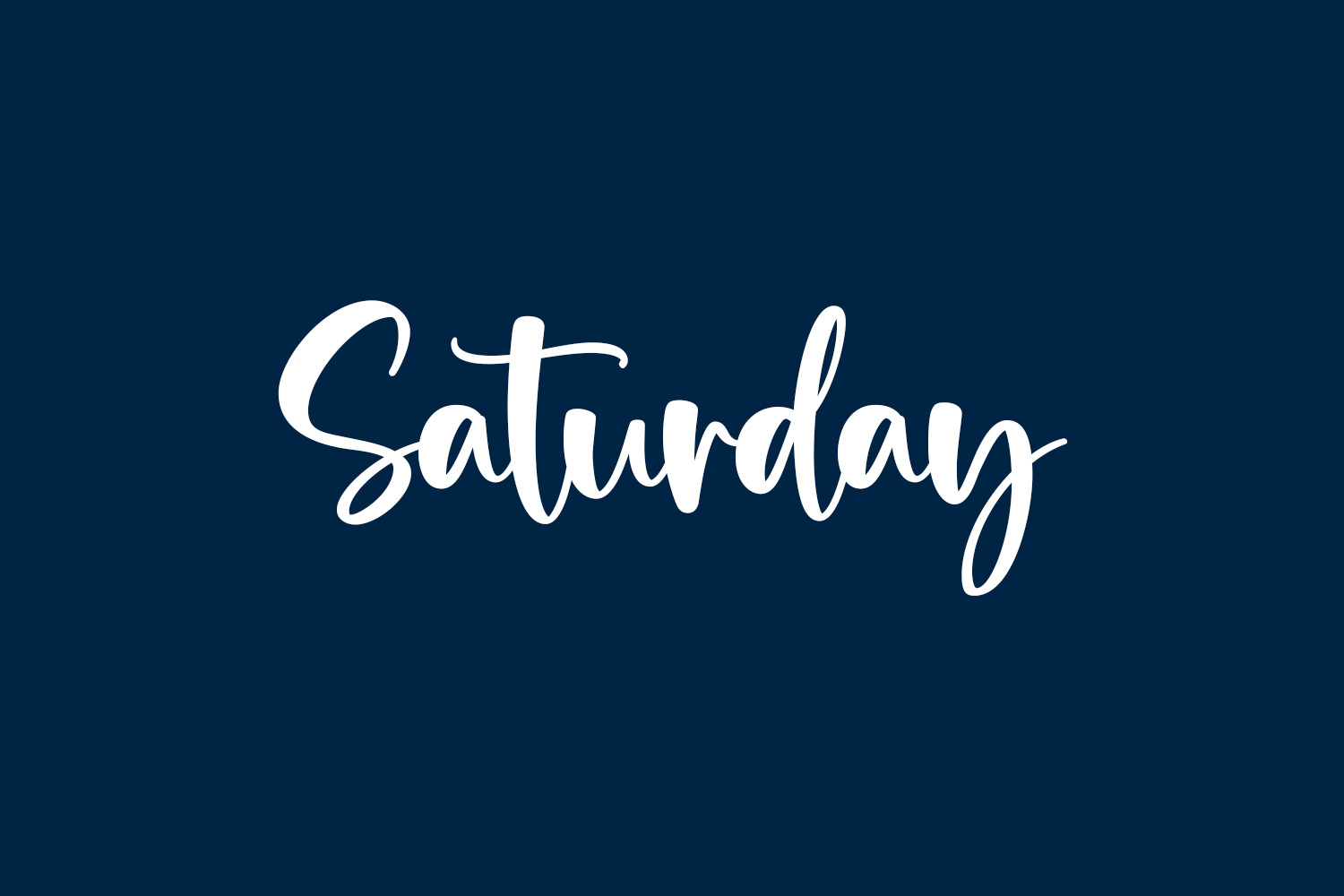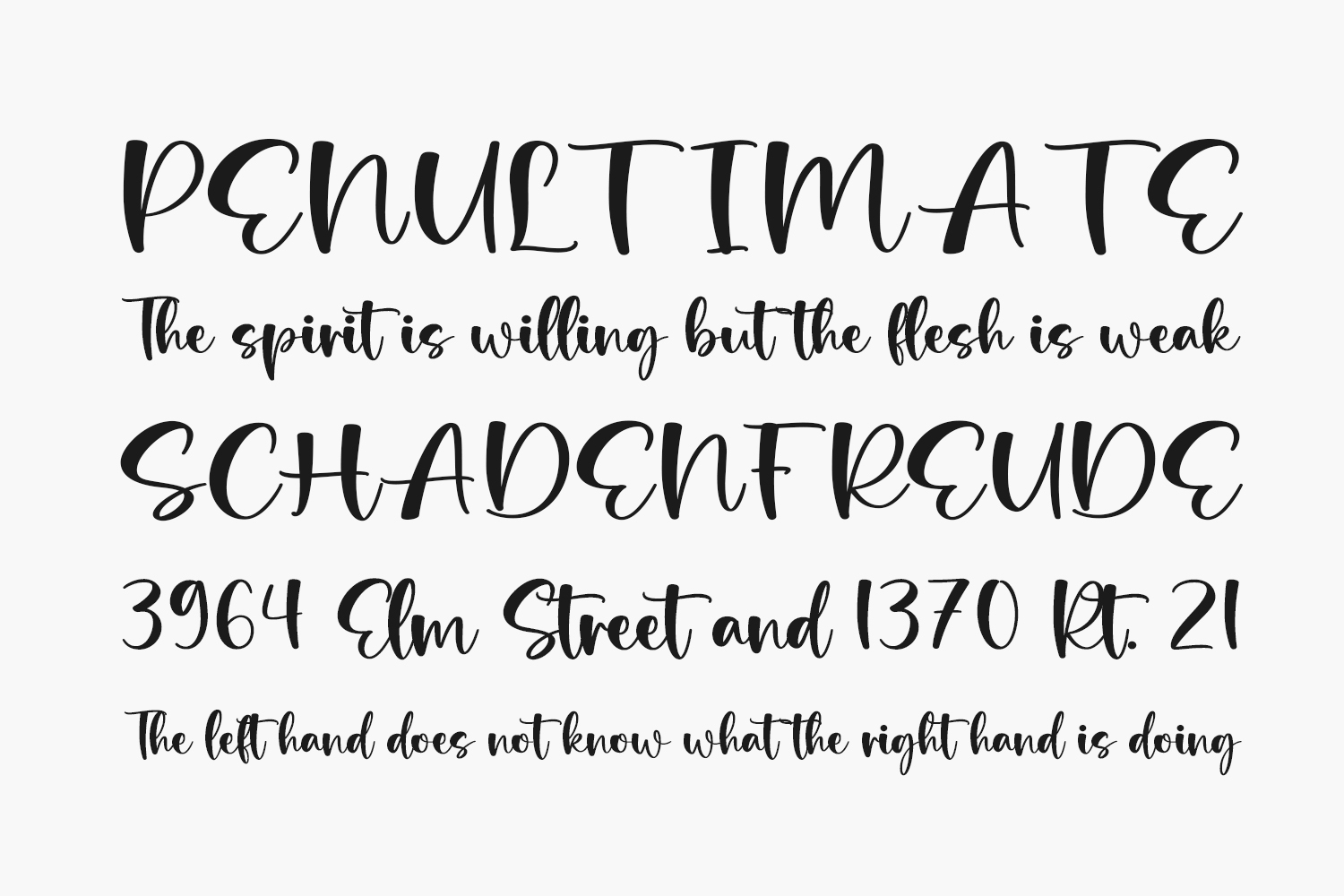
Saturday Free Font boasts a graceful and sophisticated handwritten font characterized by its delicate flow. With its well-balanced and beautiful characters, this font seamlessly complements a diverse range of design projects. Saturday Free Font is free for personal use only. Please purchase the full version for commercial use.